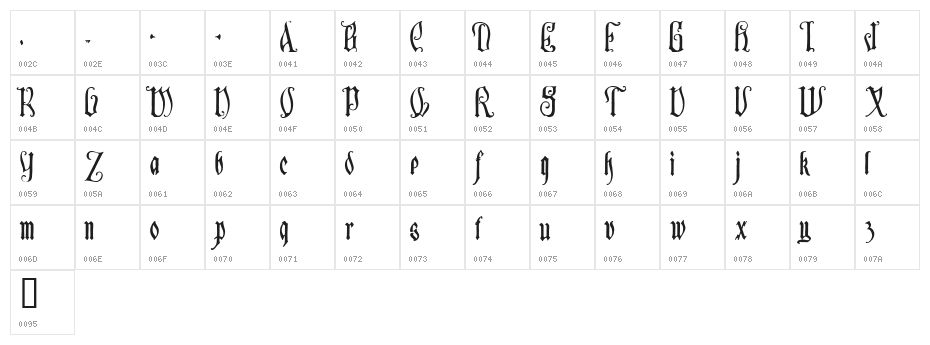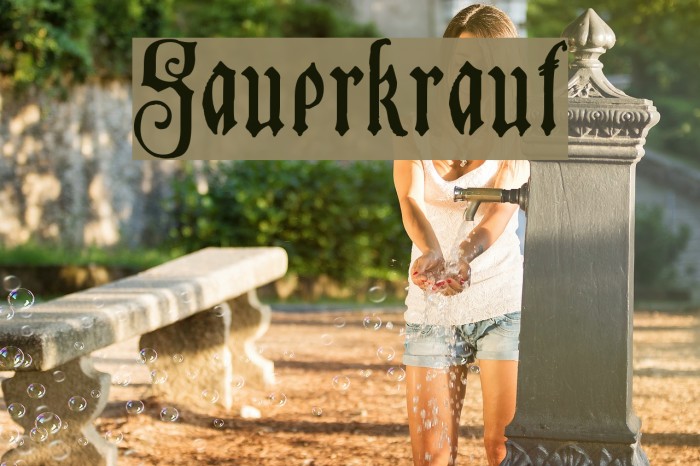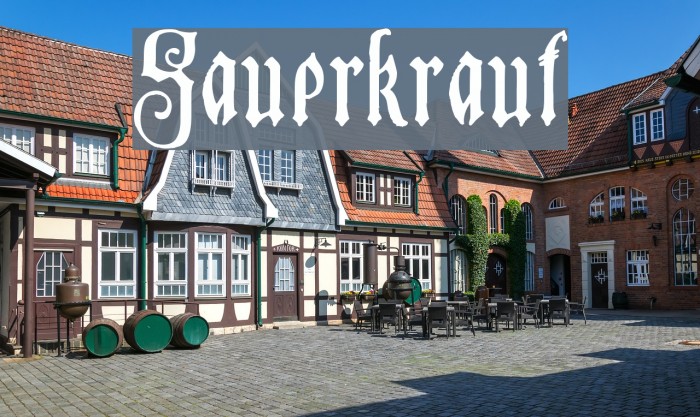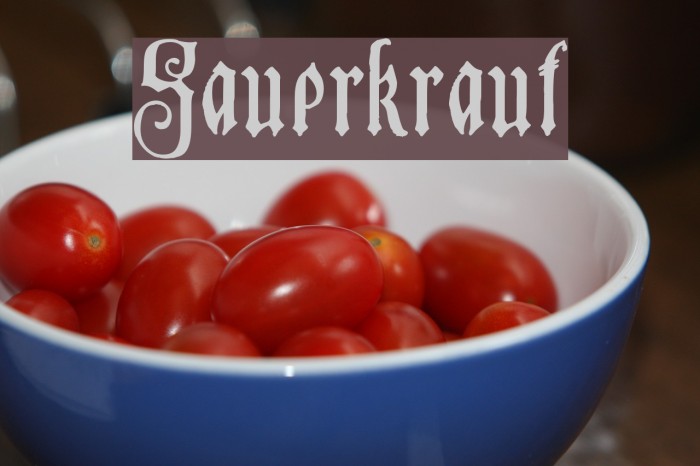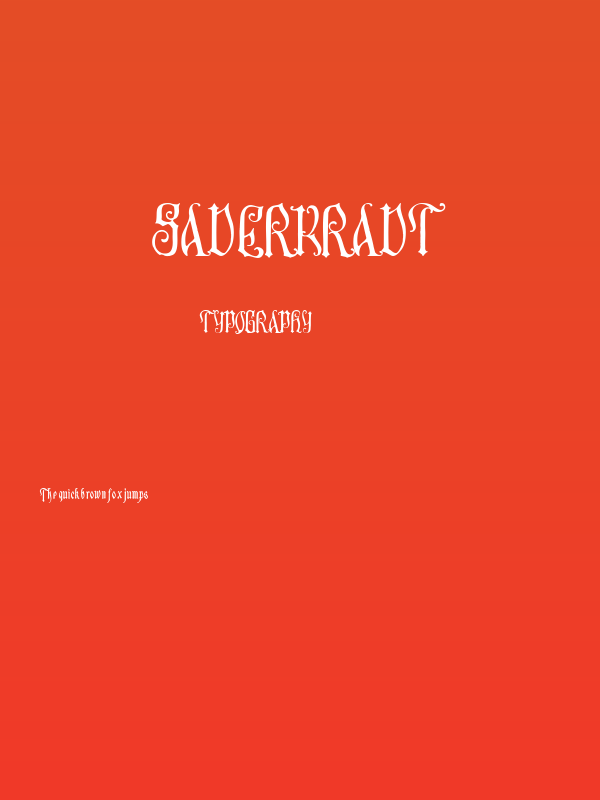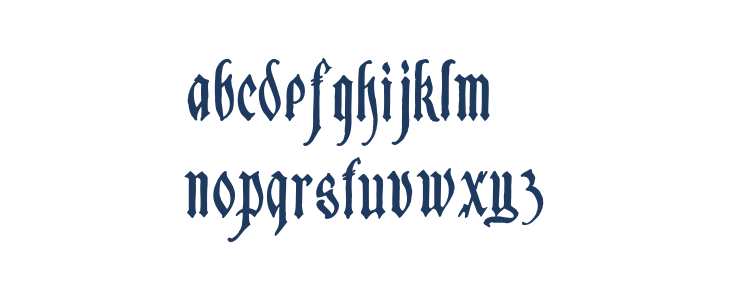
Sauerkraut Font
Sauerkraut Description
This font embodies a classic blackletter style, characterized by its intricate and ornate design. The uppercase letters feature elaborate flourishes and sharp angles, giving them a dramatic and historical appearance. The lowercase letters maintain the same level of detail, with a slightly more condensed form. The overall aesthetic is reminiscent of medieval manuscripts, making it suitable for projects that require a touch of antiquity and elegance. The absence of numbers and special characters suggests a focus on decorative text rather than functional typography.
| Proposed Projects | Ideal for historical documents, fantasy-themed designs, book covers, and branding that requires a vintage or gothic touch. |